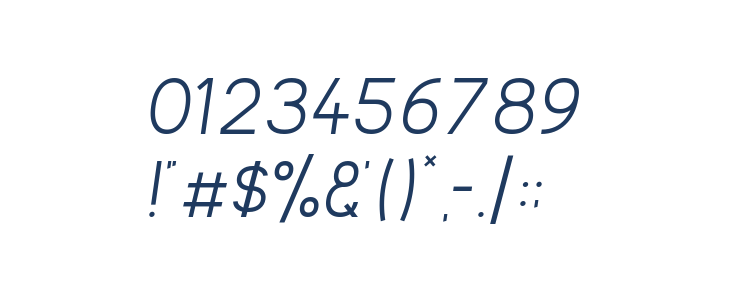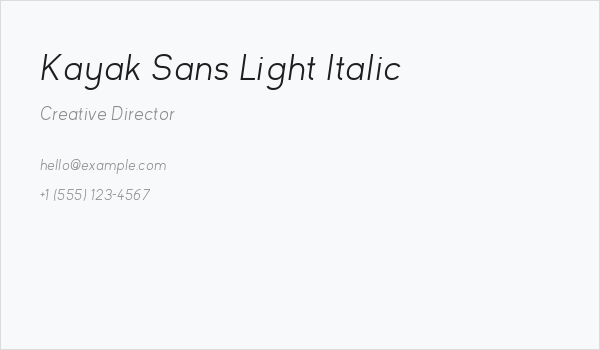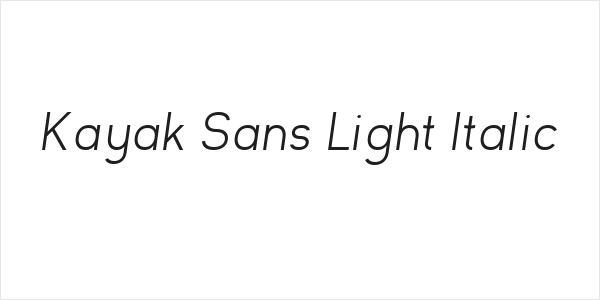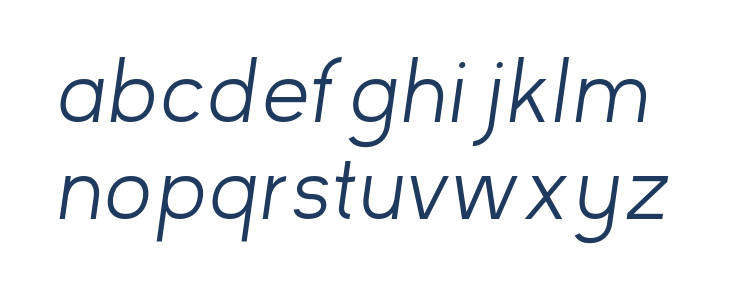
Kayak Sans Light Italic Font
Kayak Sans Light Italic Description
This font features a sleek and modern sans-serif design with a light weight and italic style. The characters are elegantly slanted, providing a sense of motion and fluidity. The clean lines and minimalistic approach make it highly legible, even at smaller sizes. The uppercase and lowercase letters maintain a consistent style, with rounded edges and a uniform stroke width that contributes to its contemporary appearance. The numerals and special characters are designed to match the overall aesthetic, ensuring a cohesive look across all text elements.
| Proposed Projects | Ideal for modern branding, digital interfaces, editorial design, and minimalist posters. |